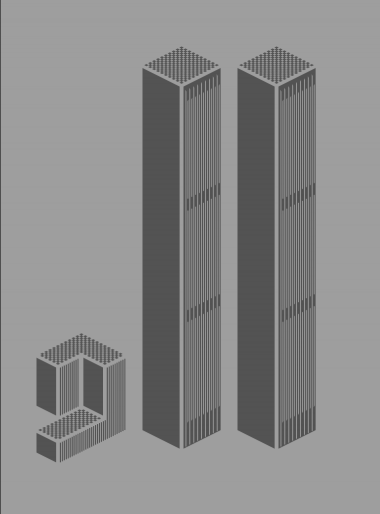
• This is a special edition font, having just a few characters. Select VIEW > USER INPUT and type: z11.
Nice trubute!
I was wondering: is the 9 representing building 7? Because a lot of people don't realize that actually 3 buildings collapsed that day. I'm kind of a conspiracy theorist when it comes to 9/11 and as Dubya Bush said when his dad was in office: Access to information is power.
Thank you for your comment. While I have to admit I don't have all the knowledge available on this serious issue, I did some research on the matter only to conclude that the official story just does not add up. It bleeds from many wounds. I'm not here to discuss that, but to make fonts, that make some people pause, or think, or start scrutinize the facts.
My message here is twofold: 1. to keep the issue alive, make people remember of that day, and of those who died; 2. to demonstrate that type could be a powerful weapon, shaper than steel, and as a designer I intend to use it.
This is a work in progress, you'll see more soon.
excellent work and excellent sentiment. you have true vision, frodo. thank you for sharing The Two Towers and Bombs and Men. i look forward to your upcoming releases.
It's a nice homage, Frodo.
Frodo, the article I linked to above debunks the "Loose Change" movie.
Comment by SquarePeg 12th september 2009
@SquarePeg I don't think cracked.com is a reliable source.
I don't believe blindly on conspiracy theories, I just doubt the official statement.
@Frodo7 I agree. The use of this incident as pretext to go to war, makes me doubt even more about the official statement.
There's a spanish song from Mocedades (1970's) that's called "el Vendedor":
En la plaza vacia,
nada vendia el vendedor.
Y aunque nadie compraba
no se apagaba nunca su voz.
...
Quien quiere vender conmigo
la paz de un niño durmiendo,
la tarde sobre mi madre
y el tiempo que estoy queriendo.
----------------------
In the empty marketplace
the vendor sells nothing.
Though nobody buys him anything,
his voice would never extinguish.
...
Who wants to sell with me
Fuselage, tail section and wings have been adjusted.